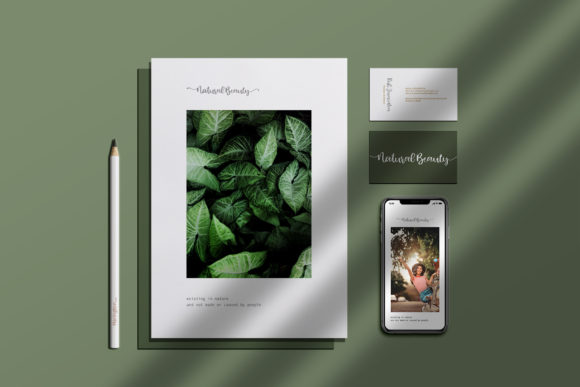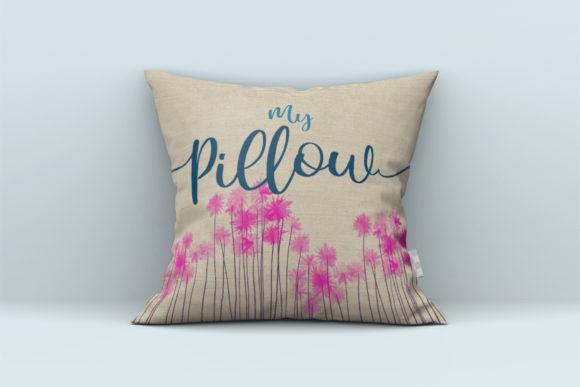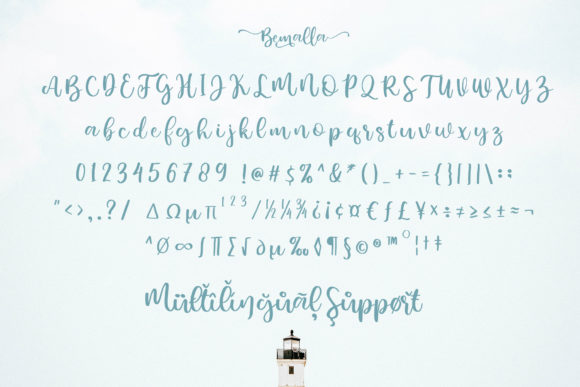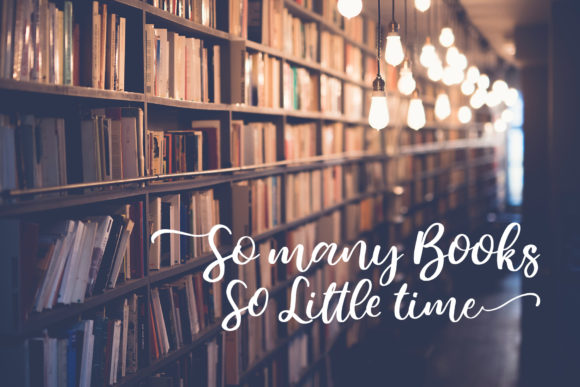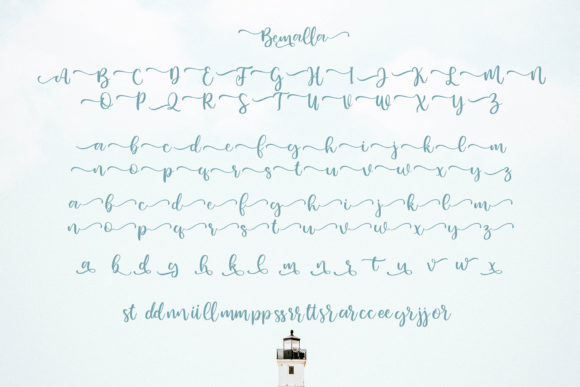
HomeScript FontsBemalla Font Script Fonts Bemalla Font FacebookXPinterestWhatsApp Bemalla Font Poster 2 Bemalla Font Poster 3 Bemalla Font Poster 4 Bemalla Font Poster 5 Bemalla Font Poster 6 About Bemalla Font Bemalla is a natural brush script font. Fall in love with it’s beautiful swashes and romantic feel!0 DOWNLOAD ON CREATIVE FABRICAThis font is sold and delivered by Creative Fabrica. Font Canyon may earn a commission if you buy through this link. People also explored Emykia Font Discount Market Font Wildflower Font Savana Font Kammerlander Font Swirly Easter Font Christmas Vehicle Font Tank Halloween Pumpkin Font 394 0 TagsBemalla Font Previous articleKidzone FontNext articleCoolkids Font LEAVE A REPLY Cancel reply Comment: Please enter your comment! Name:* Please enter your name here Email:* You have entered an incorrect email address! Please enter your email address here Website: Save my name, email, and website in this browser for the next time I comment. Personal Use Free Jilliant Personal Use Free Read more about this font New Amsterdam Personal Use Free Read more about this font Hallo Betty Personal Use Free Read more about this font Adriator Personal Use Free Read more about this font BLOG 5 Fonts That Will Dominate Design Trends in 2026 5 Fonts for 2026 That Will Dominate Design Trends Typography plays a critical role in visual communication, and as we look ahead to 2026, it’s... Exploring Font Trends Best Fonts for YouTube Videos: Make Your Thumbnails Stand Out Fonts That Capture the Spirit of New York City